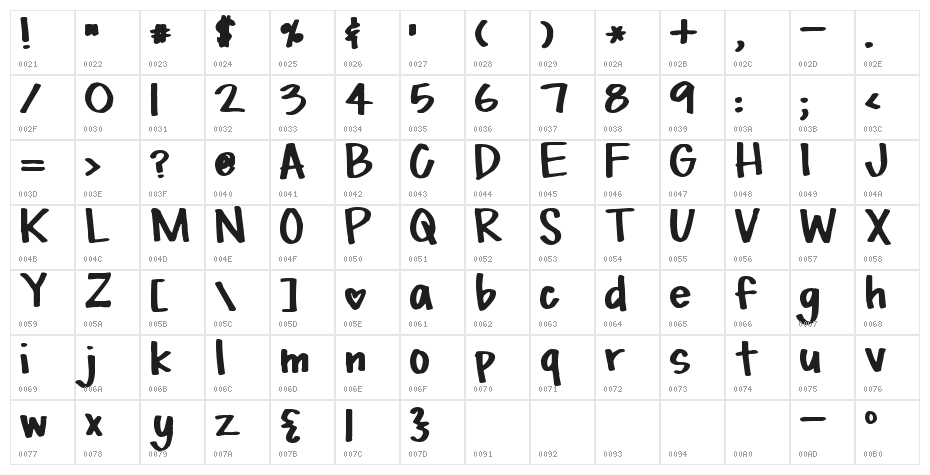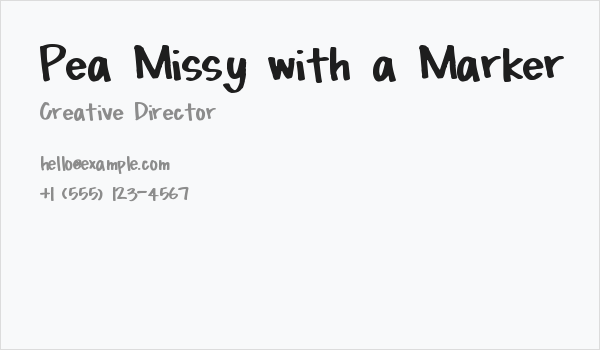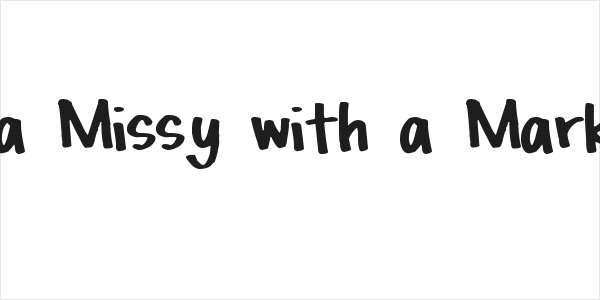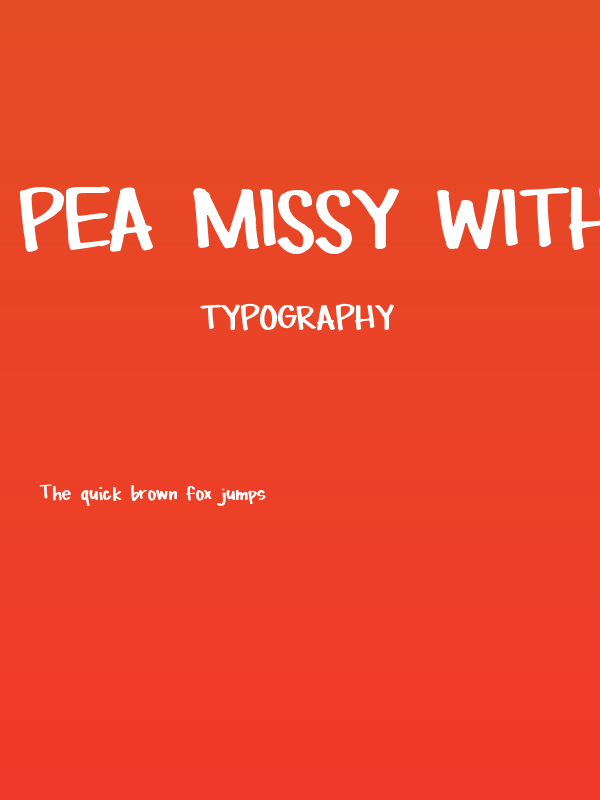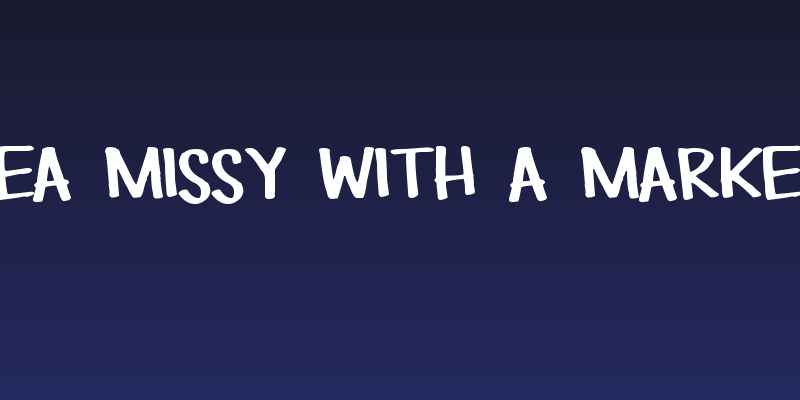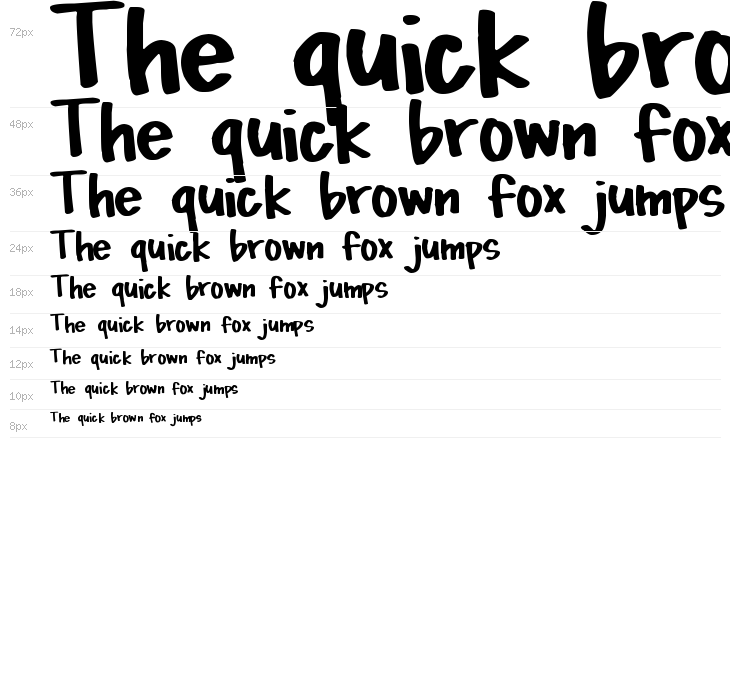
Pea Missy with a Marker Font
Pea Missy with a Marker Description
This playful and energetic font exudes a handwritten charm, reminiscent of casual marker strokes. The letters are bold and slightly irregular, giving them a lively and informal appearance. The uppercase and lowercase characters maintain a consistent style, with rounded edges and a slight slant that adds to the dynamic feel. Numbers and special characters follow the same aesthetic, ensuring a cohesive look across all text. The font's unique personality makes it ideal for projects that require a personal touch or a fun, approachable vibe.
| Proposed Projects | Ideal for greeting cards, children's books, playful branding, and social media graphics. |